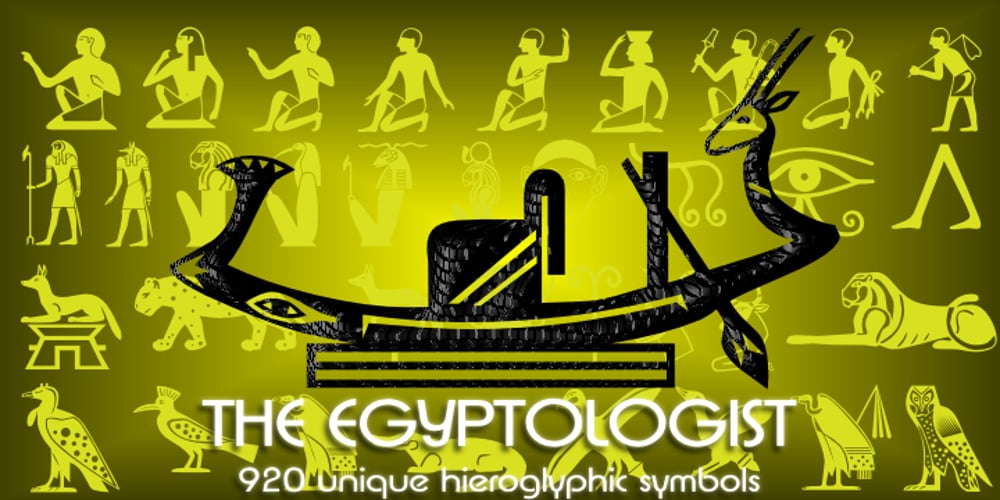
Egyptian Hieroglyphics – The Egyptologist Font Family was designed by Denise Koehler and published by Deniart Systems. Egyptian Hieroglyphics – The Egyptologist contains 20 styles and family package options. The Egyptologist font bundle contains over 920 unique Phonogram and Ideograph Egyptian Hieroglyphic symbols in 10 font files. The hieroglyphic characters in the series are arranged in a catalogue system in accordance with Sir Alan Gardiner’s “Egyptian Grammer”, making it easy to search and document Egyptian Hieroglyphic symbols. The accompanying user guide, in PDF format, allows you to quickly view and find the hieroglyphics needed for your documents. The Hieroglyphs found on the Egyptian tombs, walls and paintings vary in size and decoration and it can be said that generally, a sign, for example the horned viper will always represent the letter “f” regardless of its decorative features. The ornamentation of the hieroglyphic signs in this series were created for visual appeal, while retaining the relative form and structure of the symbols.